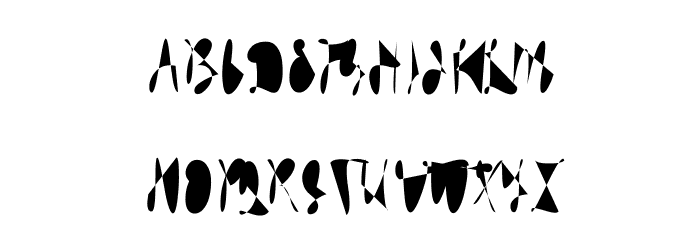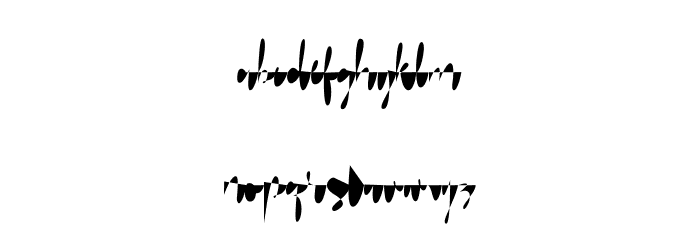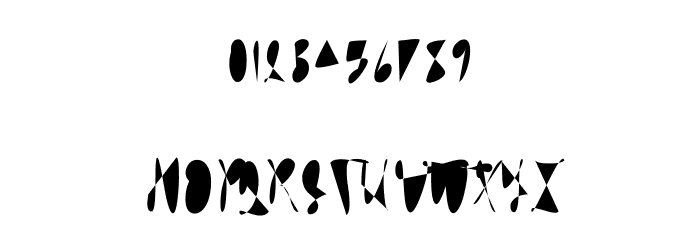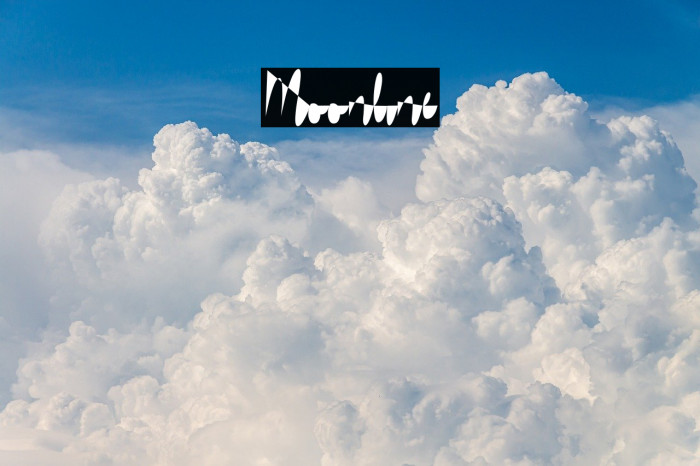
Moonline Font
This font features a highly abstract and artistic design, characterized by its fragmented and irregular shapes. Each character appears as if it is composed of scattered pieces, creating a dynamic and visually intriguing effect. The strokes are bold and vary in thickness, contributing to a sense of movement and energy. This font challenges traditional readability, making it more suitable for artistic and decorative purposes rather than for body text. Its unique style can capture attention and convey a sense of modernity and creativity.
An abstract, artistic font with fragmented, bold characters.
- Proposed Projects: Ideal for modern art projects, creative posters, album covers, and experimental design work.
- Use Case: Logos, Headlines, Artistic projects